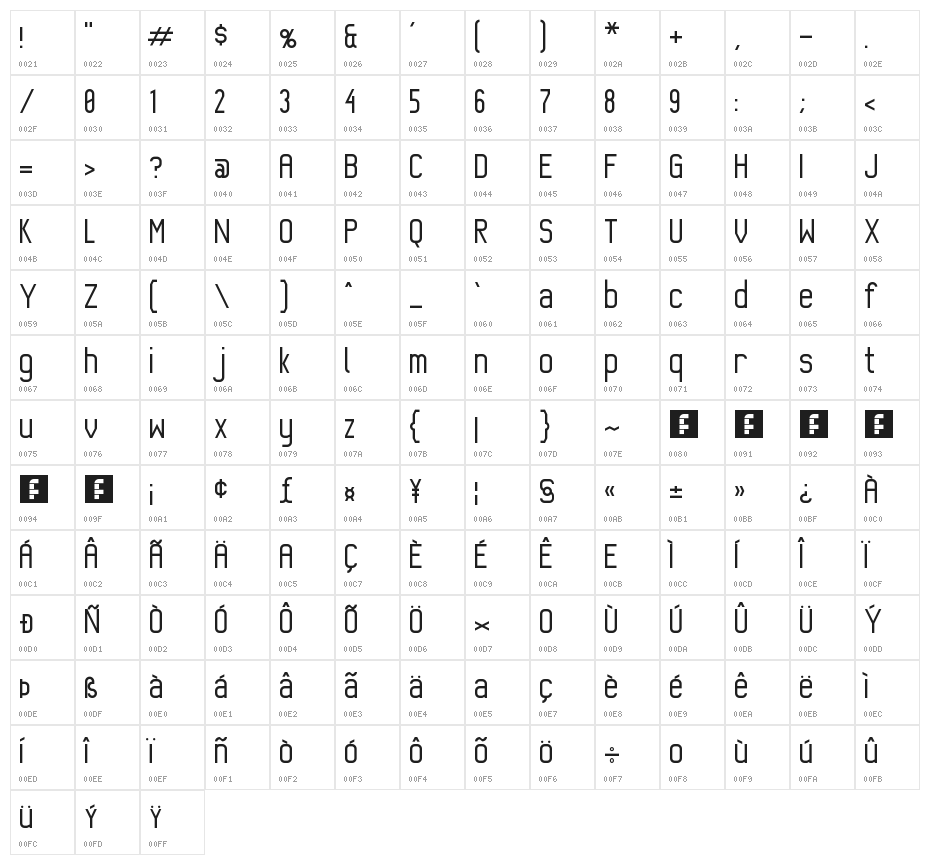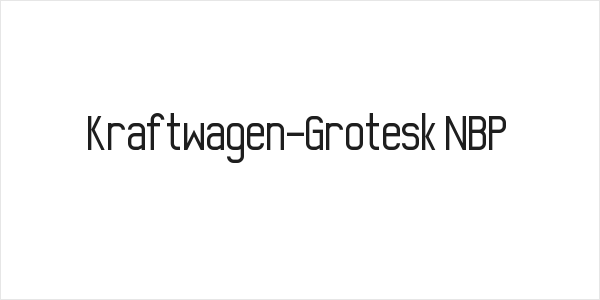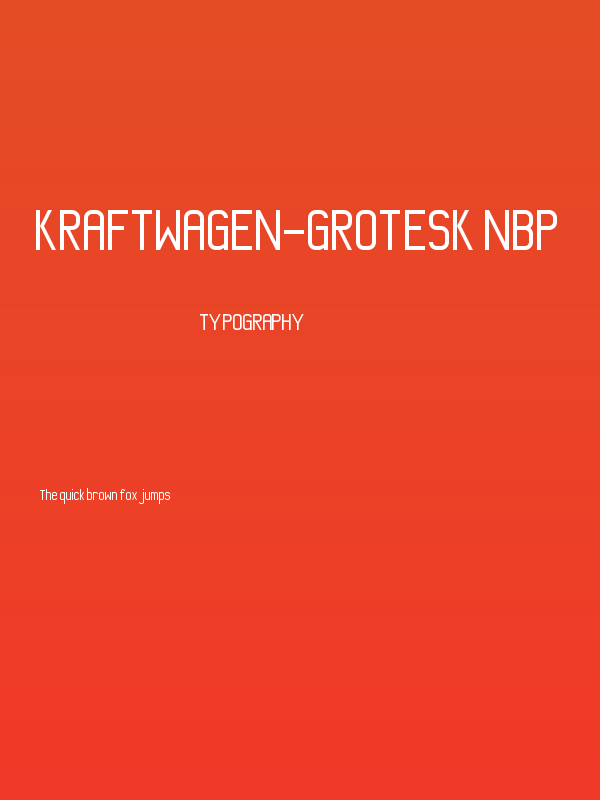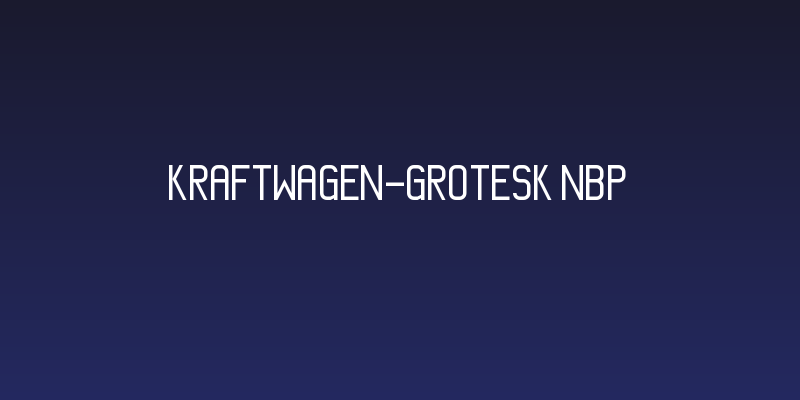
Kraftwagen-Grotesk NBP Font
Kraftwagen-Grotesk NBP Description
This font features a clean, geometric design with a modern aesthetic. The characters are constructed with consistent stroke widths, giving it a uniform appearance. The uppercase letters are tall and narrow, while the lowercase letters maintain a similar width, creating a cohesive look. The numerals are distinct and easily readable, matching the overall style of the alphabet. Special characters are designed to complement the alphanumeric characters, ensuring versatility in various design applications. The font's simplicity and clarity make it suitable for a wide range of uses.
| Proposed Projects | Ideal for branding, signage, digital interfaces, and editorial design where clarity and modernity are desired. |